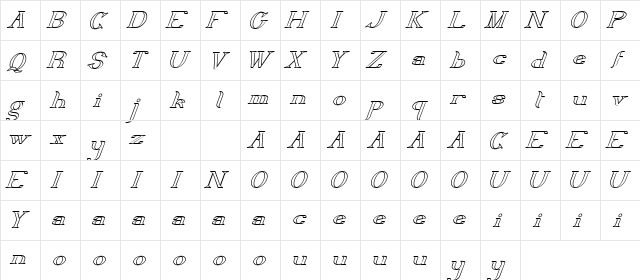
Delith Demo Line Italic
| Foundry | NihStudio |
| Designer | Nouval & Suci Anita |
Design Context for Delith Demo Typeface
Delith Demo takes a measured approach to typography — its balanced proportions and neutral character make it a reliable workhorse for both digital and print work. The dynamic lean of this cut emphasises speed and emphasis in any layout.